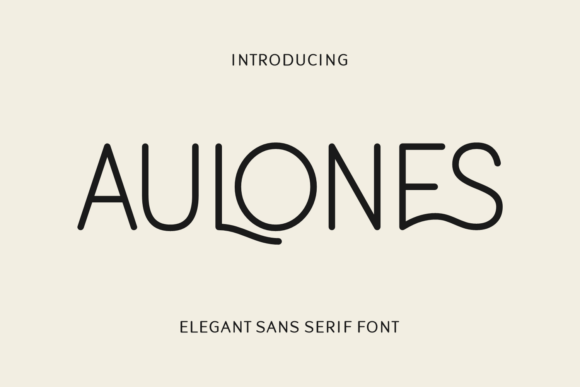
Ah, the eternal quest for the perfect font! I still remember the time I was working on a project for a high-end fashion brand, and my client asked me to create a logo that exuded elegance and sophistication. I spent hours scouring through font libraries, but nothing seemed quite right. That was until I stumbled upon Aulones Font. ✨
Aulones Font: A Game-Changer for Designers
Aulones is a sleek and stylish sans serif font that has clean lines and a modern look, making it easy to read. Its simple yet refined style gives a contemporary feel to any project, making it perfect for headlines, logos, and any design that needs a touch of elegance. ✅
- ✨ Clean and modern design: Aulones Font has a crisp, clean design that looks amazing on both digital and print materials.
- ✅ Ease of readability: The font is easy to read, even at small sizes, making it perfect for body text and captions.
- 💡 Versatility: Aulones Font can be used for a wide range of projects, from logos and headlines to body text and more.
While Aulones Font is an excellent choice for many projects, there are a few things to keep in mind: ⚠️
- 🤔 Limited character set: Aulones Font may not have an extensive character set, which can limit its use for certain languages or special characters.
- ⚠️ Not suitable for body text: While Aulones Font is easy to read, it’s not the best choice for long blocks of body text. It’s better suited for headlines, titles, and short paragraphs.
If you like Aulones Font, you may also want to consider the following alternatives:
- Montserrat: A geometric sans serif font with a similar modern and sleek feel. Use it for urban-themed projects or designs that require a strong, bold look.
- Merriweather: A classic serif font with a elegant and refined feel. Use it for body text, articles, and other long-form content.
- Open Sans: A clean and modern sans serif font with a friendly feel. Use it for digital projects, such as websites and mobile apps.
- Lato: A sans serif font with a warm and inviting feel. Use it for designs that require a touch of elegance and sophistication.
The Story Behind Aulones Font
Aulones Font was designed by a team of typographers who wanted to create a font that was both modern and elegant. The design process involved extensive research and testing to ensure that the font was easy to read and versatile enough for a wide range of projects.
Q: What is Aulones Font?
A: Aulones Font is a sleek and stylish sans serif font that’s perfect for headlines, logos, and any design that needs a touch of elegance.
Q: What are some alternatives to Aulones Font?
A: Some alternatives to Aulones Font include Montserrat, Merriweather, Open Sans, and Lato.